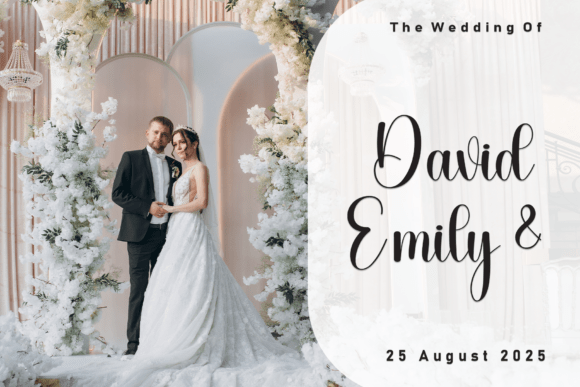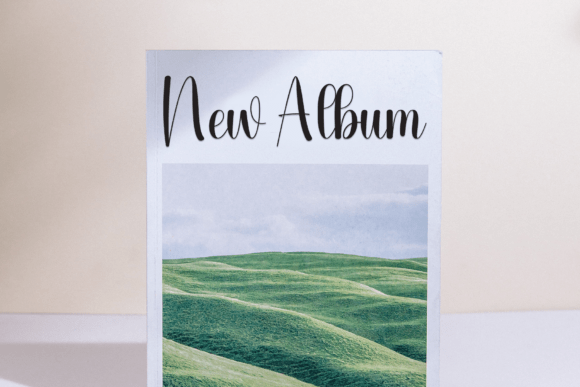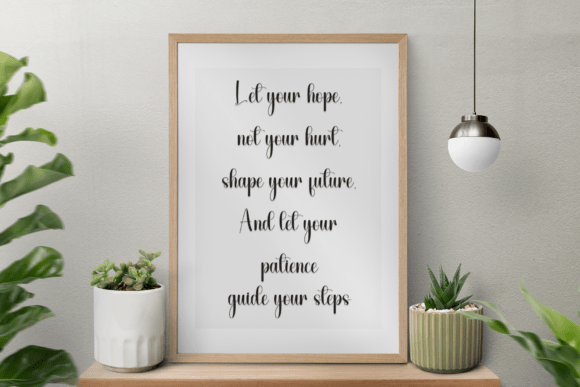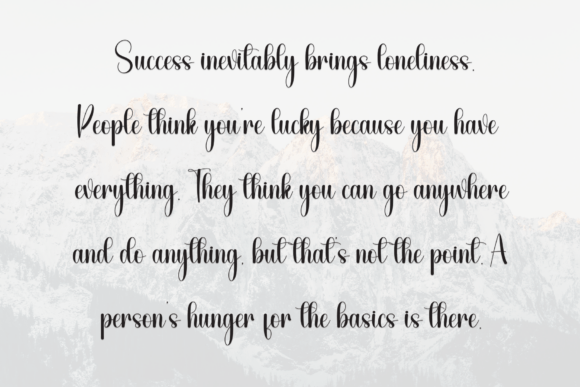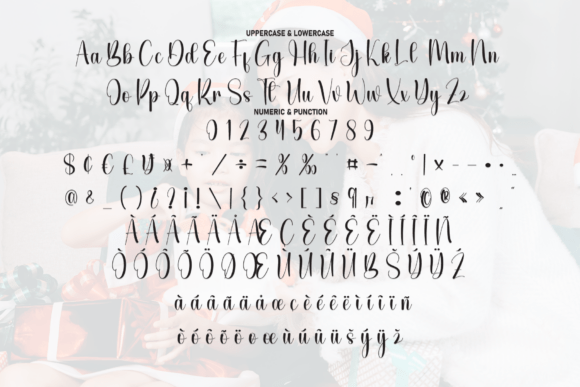
The Perfect Blend of Style and Cheer: Unveiling the Birthday Christmas Font
It’s that magical time of year when creativity knows no bounds, and the world is bathed in a warm, festive glow. As designers, we’re no strangers to the thrill of bringing our vision to life – and what better way to do so than with a font that embodies the spirit of the season? Enter the Birthday Christmas Font, a stylish script font that exudes artistic flair and contemporary elegance.
With its fluid brush strokes, dynamic curves, and expressive letterforms, this font is the perfect companion for designers seeking to add a creative and sophisticated touch to their work. Whether you’re crafting logos, invitations, packaging, or social media graphics, the Birthday Christmas Font is sure to deliver both visual impact and versatility. Its natural flow and vibrant character make it an invaluable addition to any design arsenal.
Birthday Christmas Font Key Features
- Unique Characteristics: The Birthday Christmas Font features a unique blend of festive and celebratory elements, making it perfect for holiday-themed designs, invitations, and greeting cards.
- Style: The font has a playful, cursive style with bold lines and decorative flourishes, adding a touch of whimsy and fun to any design.
Birthday Christmas Font Review
At first glance, I thought the Birthday Christmas Font was a quirky addition to any holiday design. ✨ The bold, playful letters did capture the celebratory spirit of both birthdays and Christmas. I liked how the font’s unique flair made it stand out from more traditional holiday fonts.
One of the standout features of this font is its versatility. ✨ You can use it to create festive headings, birthday invitations, or even holiday-themed social media graphics. It’s a great option for those looking for a fun, non-traditional font that still conveys the holiday spirit.
While the Birthday Christmas Font has its charm, there are some limitations to consider. ⚠️ The font’s design may not be suitable for all types of designs. For instance, it may not work well for formal or corporate designs, as it’s more geared towards casual and playful applications.
Another limitation is the font’s limited character set. ⚠️ While it’s great for short phrases or headings, it may not be the best option for longer blocks of text. Additionally, some characters may not be as well-designed as others, which could impact the overall look of your design.
Overall, I think the Birthday Christmas Font is a fun and creative option for holiday designs. While it may not be the best choice for all types of designs, it’s a great option for those looking for a playful and festive font. With a little creativity, you can use this font to create unique and eye-catching holiday designs.
The Birthday Christmas Font is ideal for:
- Birthday party invitations and decorations.
- Christmas cards and gift tags.
- Wedding invitations and decorations (for a winter or holiday-themed wedding).
For the best results, use the Birthday Christmas Font in conjunction with other festive graphics and elements, such as snowflakes, holly, or Christmas trees. You can also experiment with different font sizes, colors, and styles to create a unique and eye-catching design.